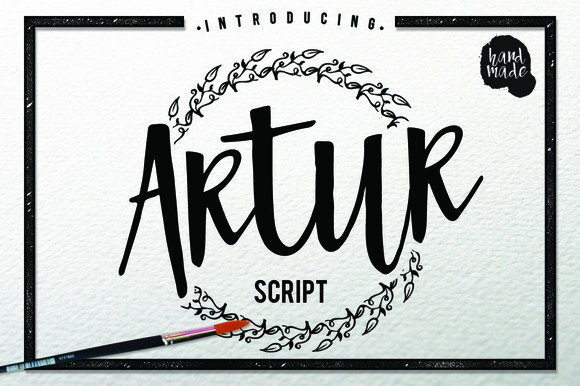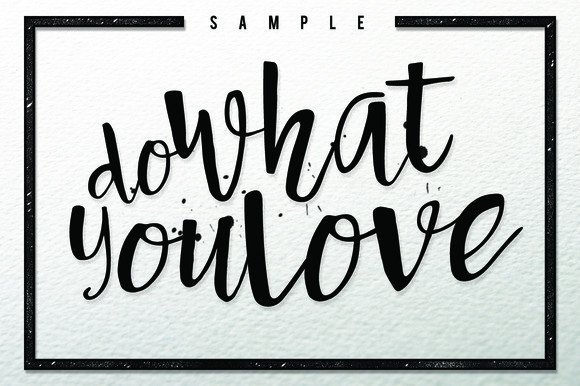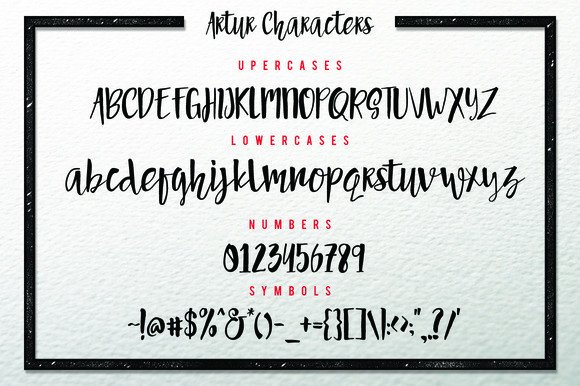
Artur Font
About Artur Font
Artur is a modern typeface that will give your design an elegant touch. It Can be used for various purposes such as headings, logos, invitations, t-shirt designs, greeting cards, posters, labels, book covers, brochures, and much more!